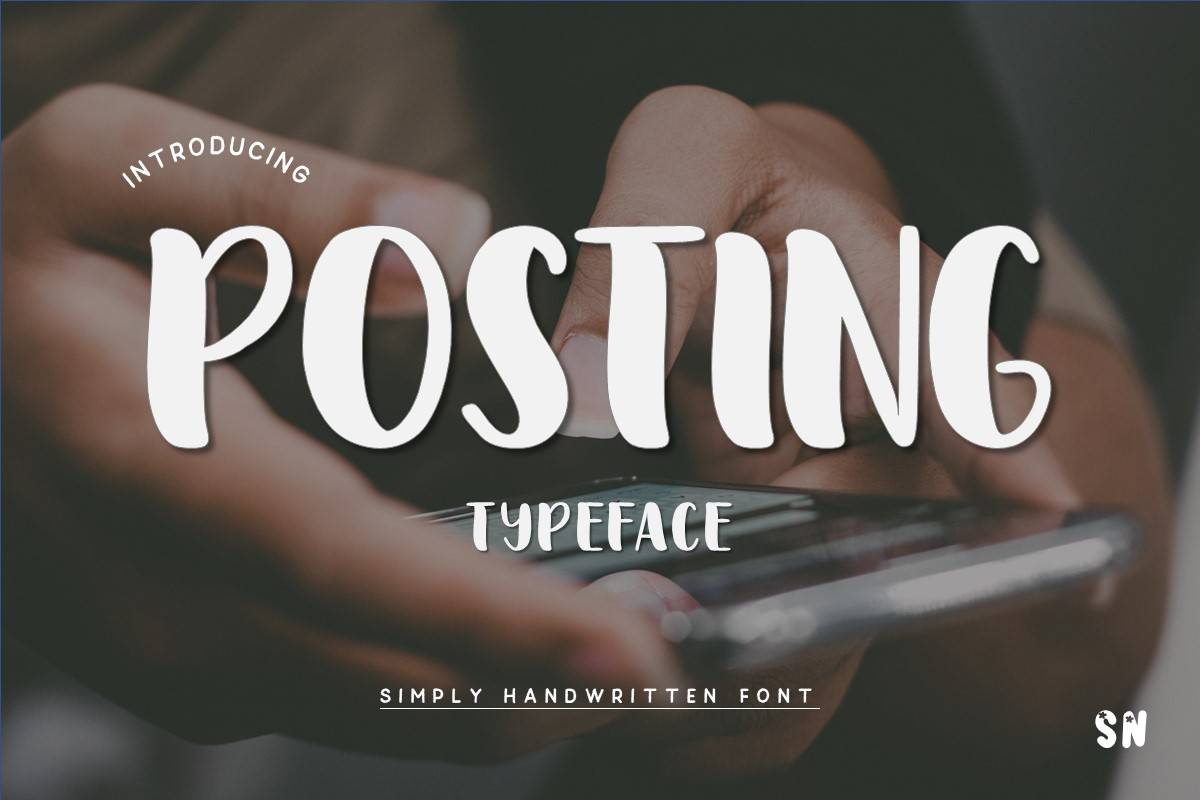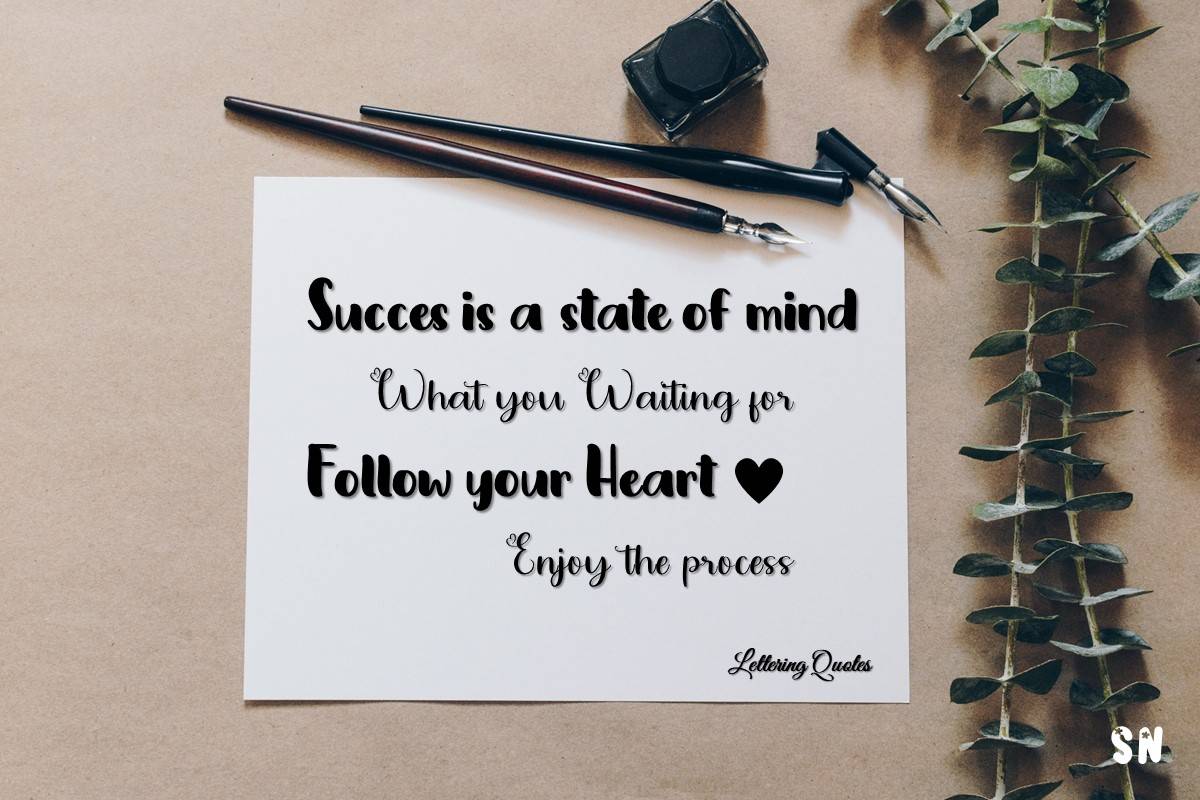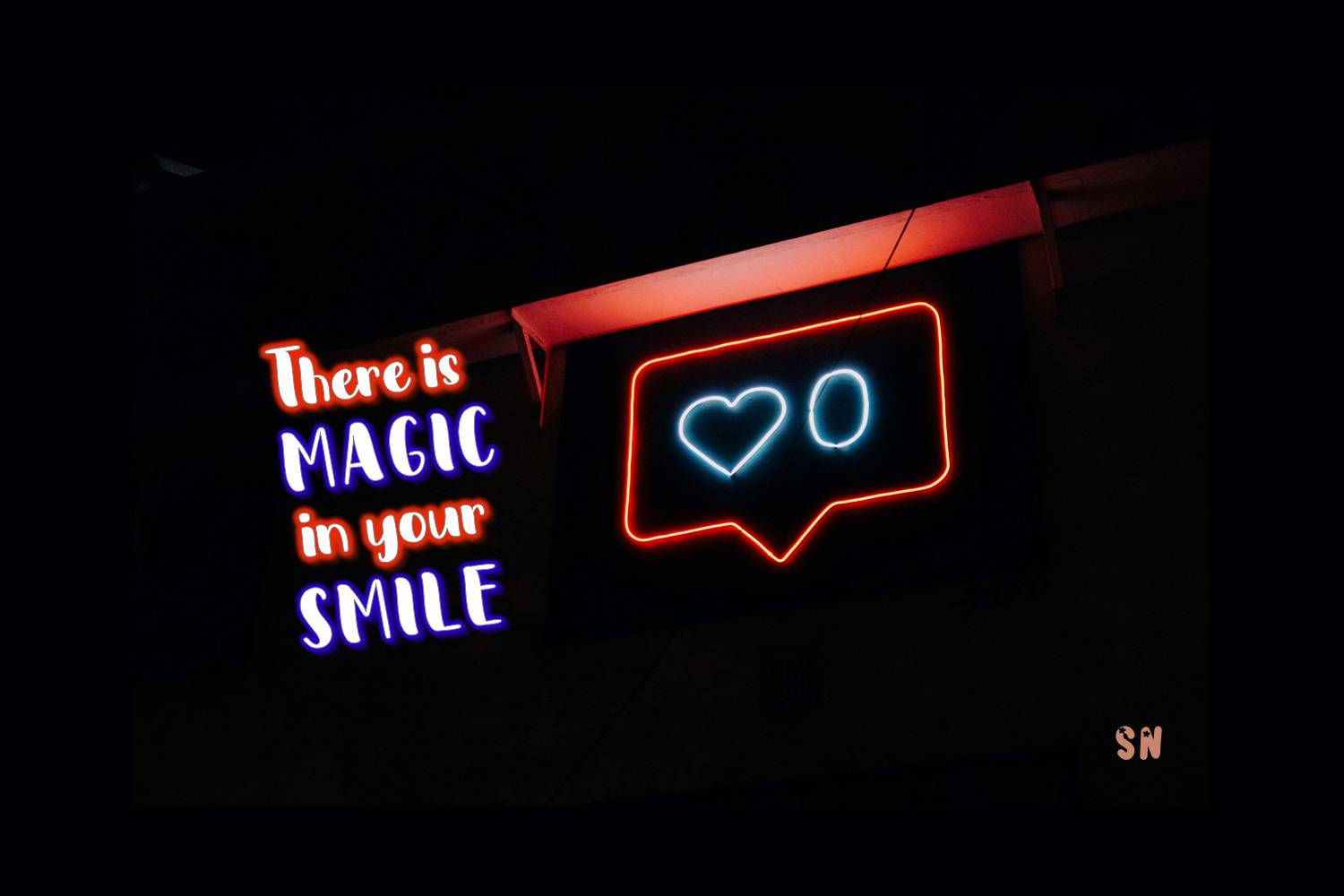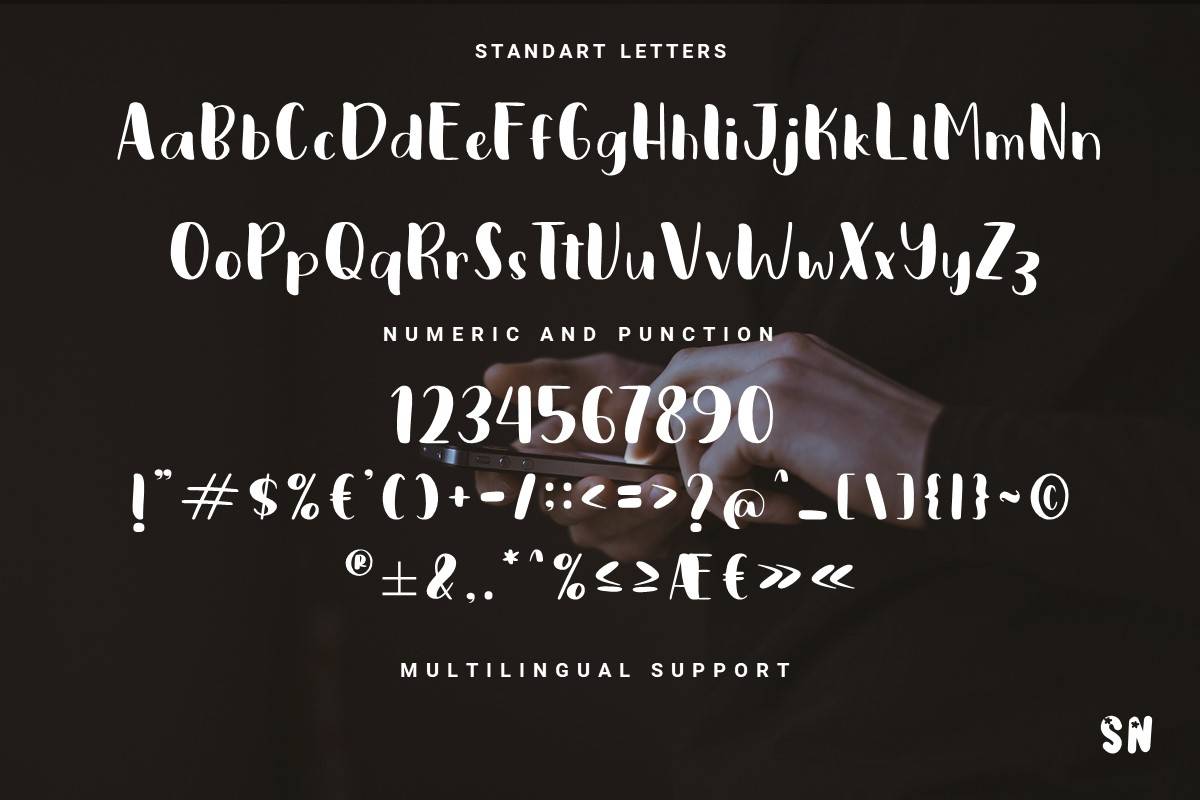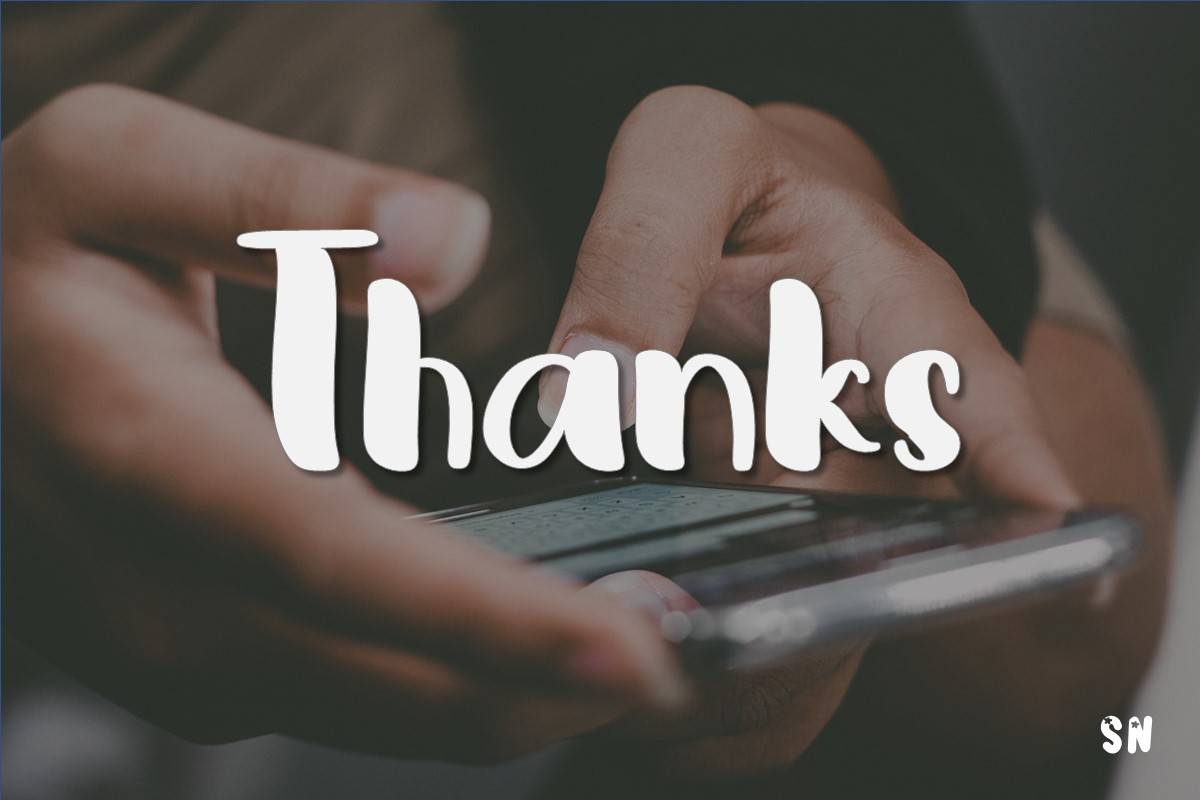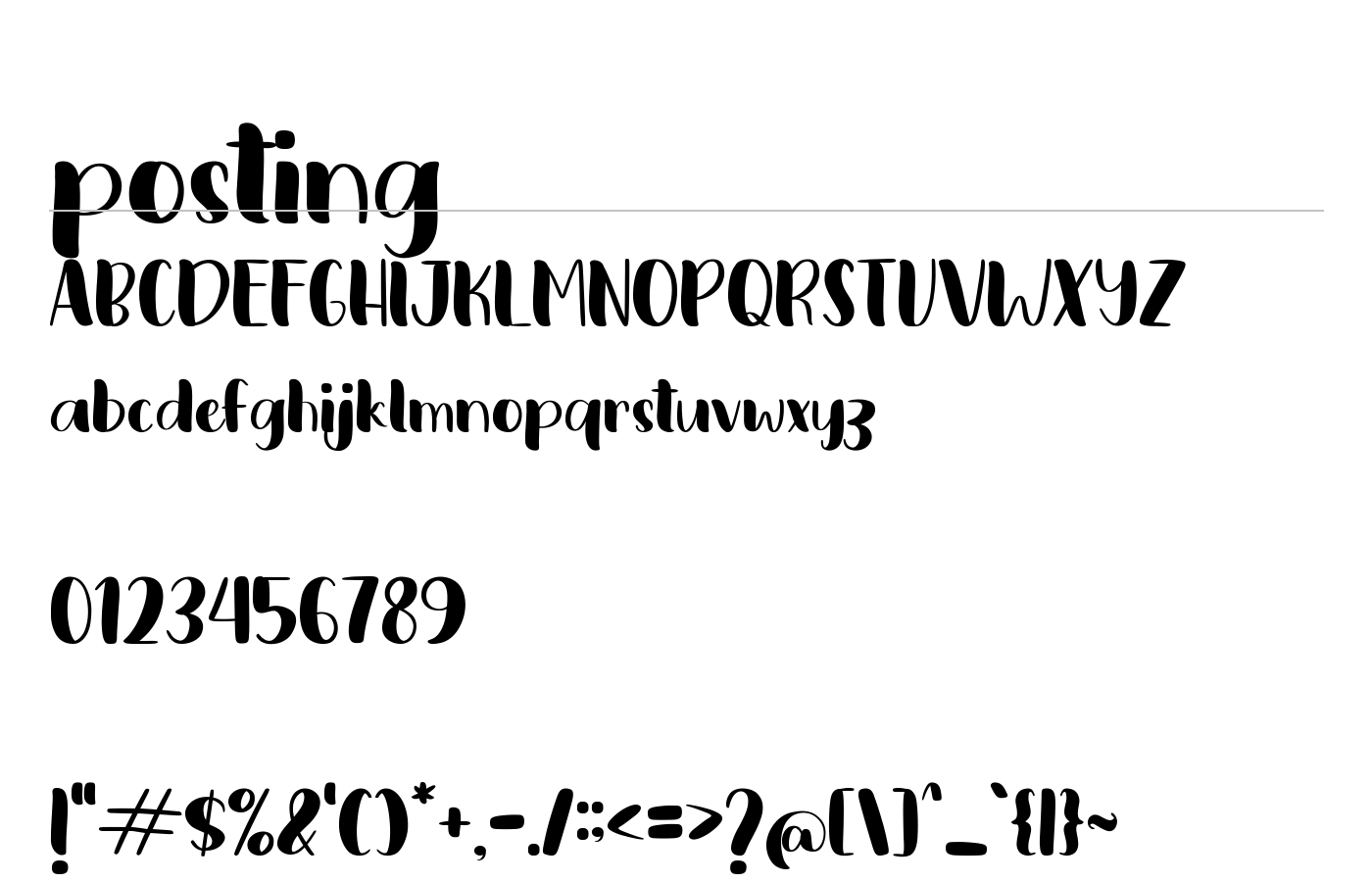
Posting Font is a playful and quirky sans serif typeface with a hand-drawn feel, featuring a mix of thick and thin strokes that give it a lively contrast and unique personality. Its tall, slightly condensed letterforms with rounded terminals make it perfect for creative branding, fun headlines, and informal editorial projects that need a friendly and approachable vibe. This font works wonderfully in packaging, posters, and websites that aim to stand out with a distinctive, casual style.
Posting Font
About Posting Font
| Font family | Posting Font |
| Designer | Soko Nusa |